Have you ever felt the thrill of nostalgia when you see vintage college logos? Those bold slab serif fonts instantly take us back to spirited game days and campus memories. Understanding your love for classic designs, I’m excited to share a collection that captures that essence!
These distressed and outline-style fonts bring a unique charm to your projects. Whether you’re designing event posters, team jerseys, or a heartfelt graduation card, the right font can evoke pride and connection. They solve the challenge of adding a personal touch while celebrating school spirit, making your creations truly stand out.
Campus Stamp Font
The Campus Stamp font brings a rugged, tactile feel to any project with its grunge texture. It’s ideal for creating vintage sports apparel, academic-themed posters, and artisanal branding that celebrates a handmade touch. Imagine designing a cozy college event flyer using the font paired with bold varsity colors for a spirited look. Its unique imperfections add character, making your creative endeavors feel authentic and engaging.
College Grunge Font
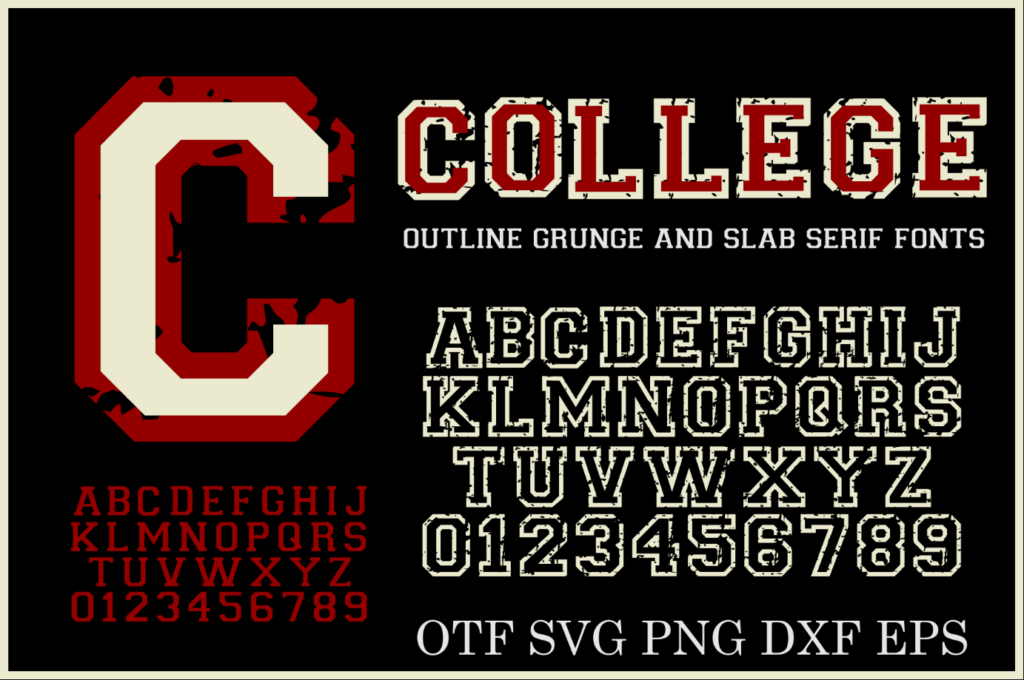
The College Grunge Font duo features a vintage-inspired distressed texture and a bold slab serif. It’s ideal for creating spirited sports team logos, retro posters, and trendy apparel designs. Imagine crafting a spirited t-shirt for a college reunion or designing eye-catching event flyers that capture attention. With multiple formats available, it’s easy to incorporate into any creative project, making your designs stand out effortlessly.
College Outline Font
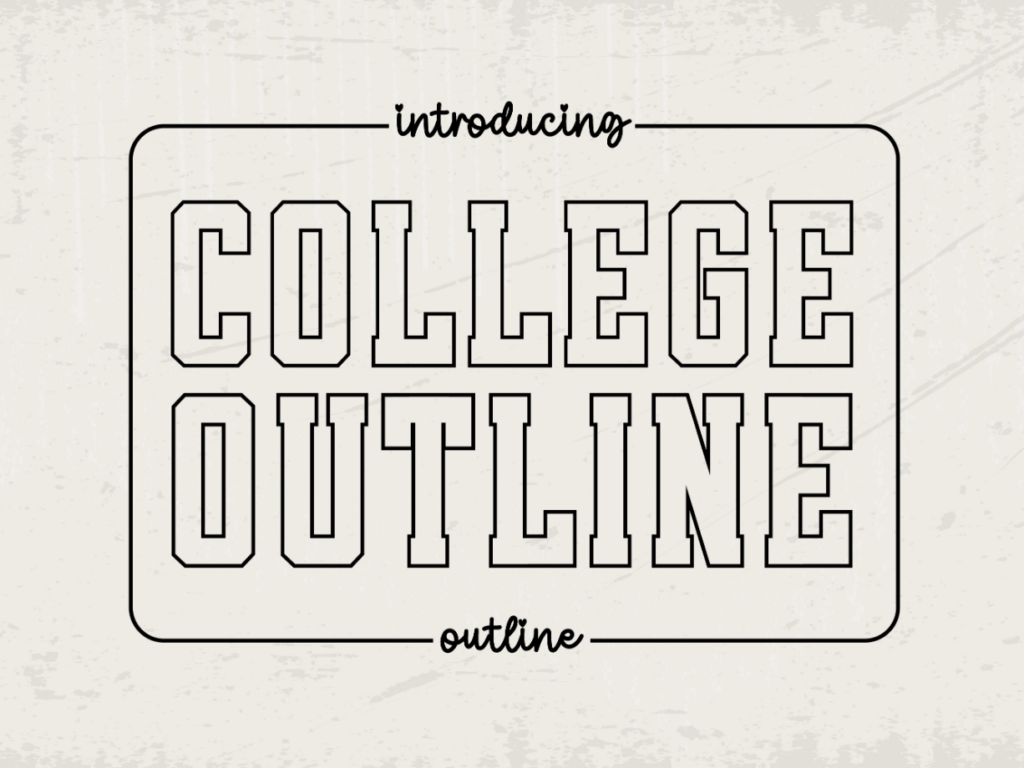
College Outline Font features a sporty slab serif style with a bold, eye-catching outline. It’s ideal for creating team apparel, promotional materials, or spirited event graphics. Imagine designing a trendy varsity T-shirt featuring your school’s name in grand letters, paired with a script tagline beneath. Its versatility and dynamic look make it a fantastic tool for adding a collegiate flair to any project.
Outline Varsity Font
Outline Varsity is a bold display font that captures the spirit of classic collegiate style. It’s ideal for creating dynamic sports team logos, eye-catching banners, and stylish yearbook titles. Imagine designing a vibrant jersey number that stands out on the field or crafting a nostalgic tournament flyer that evokes school pride. Its clear, outlined letterforms make it easy to read, ensuring your message shines through in any project.
College Distressed Font
The College Distressed Font features a bold, vintage style that adds a rugged charm to your designs. It’s ideal for creating retro college graphics, from posters to t-shirts and logos. Imagine designing a cozy hoodie for your school spirit event, showcasing the worn-out texture that evokes nostalgia. With included brushes for extra customization, you can easily enhance your projects and make them truly unique.
Letter Jersey Font
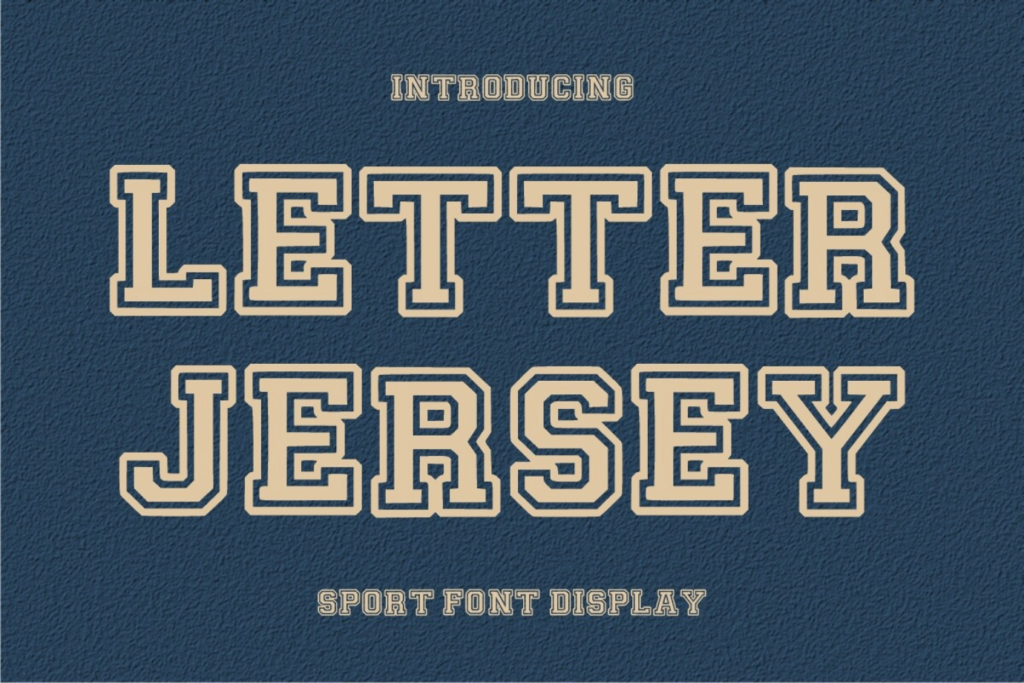
Letter Jersey Font is a bold, slanted typeface that radiates energy and excitement. It’s great for creating eye-catching posters, sporty t-shirts, or dynamic event invitations that grab attention. Imagine designing a vibrant team jersey with a motivational quote that inspires athletes and fans alike. Its versatile nature makes it easy to adapt to any collegiate-themed project, ensuring your creativity shines through.
Jersey Varsity Font
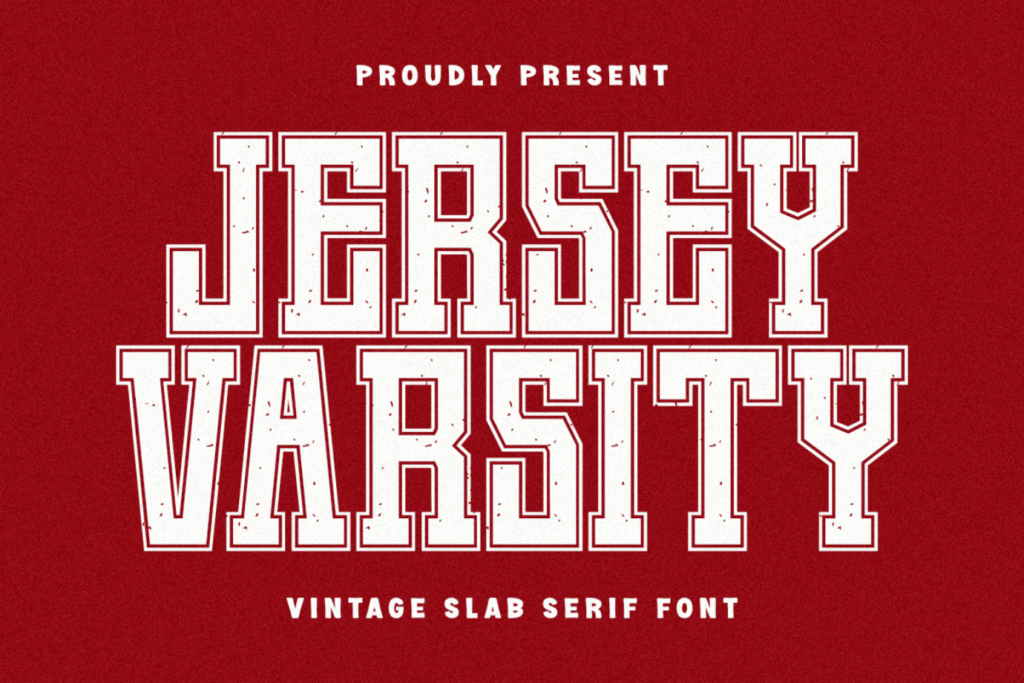
Jersey Varsity Font brings a vintage slab serif style with a rugged, distressed texture that exudes collegiate charm. It’s great for creating bold designs for athletic apparel, retro posters, and team logos. Imagine crafting eye-catching t-shirts for a reunion game or designing spirited banners for a school event. This versatile font simplifies your creative process, allowing you to capture that energetic, old-school vibe effortlessly.
Rough Varsity Font
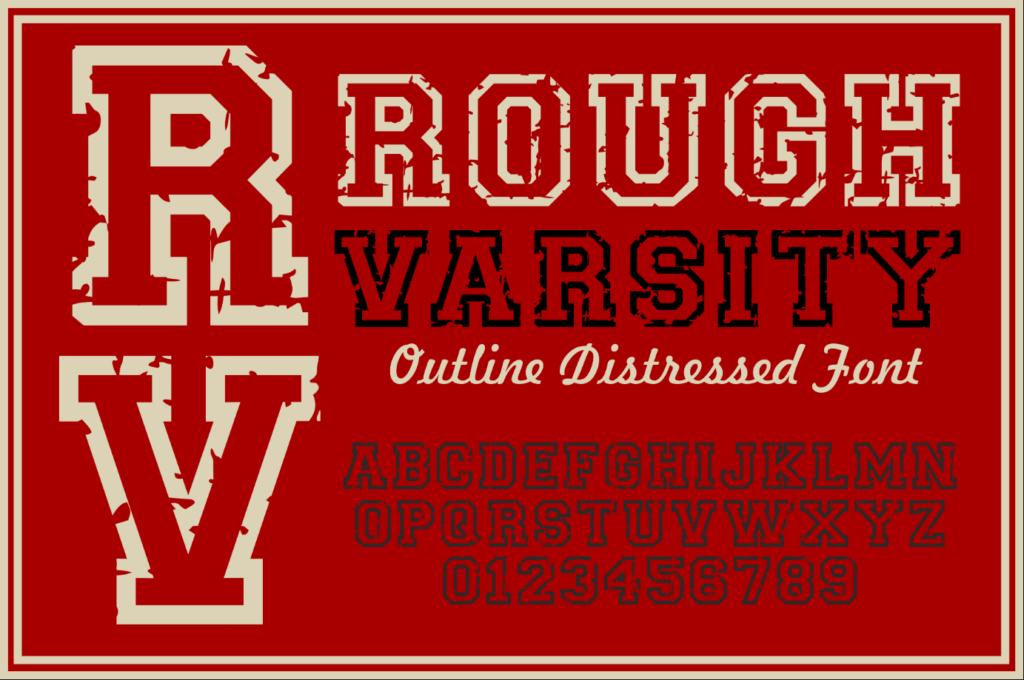
Rough Varsity is a bold sports font featuring a distressed effect and strong outline. It’s ideal for creating dynamic team logos, university prints, and vintage apparel designs. Imagine designing a custom hoodie with your school’s name, showcasing that classic athletic vibe. This font effortlessly adds character and authenticity to any creative project, making your designs stand out.
School House Block Font
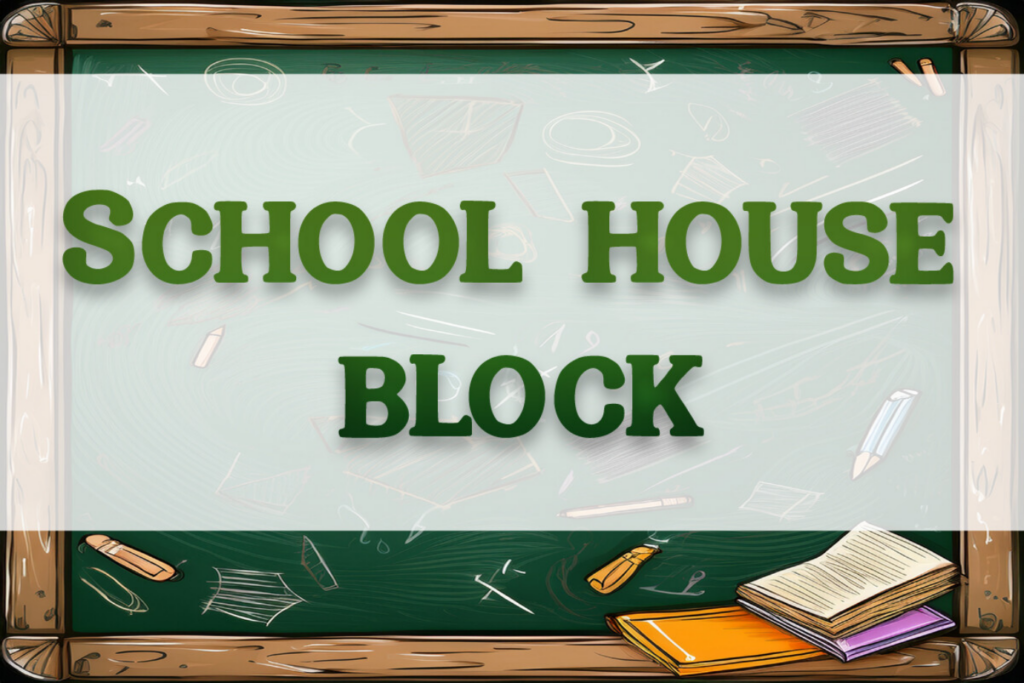
The School House Block Font brings a nostalgic charm to your designs with its sturdy slab-serif style. It’s ideal for creating educational materials, vibrant classroom posters, and engaging children’s book covers. Imagine designing a “Back to School” flyer featuring fun illustrations paired with this bold font to capture attention. Its reliable readability and warm presence make it a wonderful addition to any creative project, ensuring your message stands out beautifully.